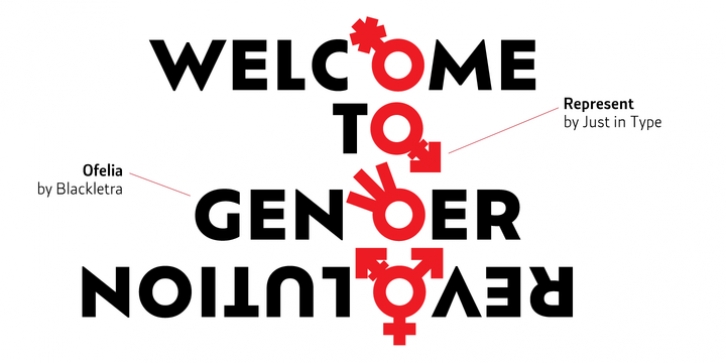
To understand the diversity in the world it is necessary to recognize its symbols. Sex, gender and sexual orientation should be represented in the clearest way possible. The REPRESENT family brings 15 symbols in 12 weights (from skinny to plus size), in three styles: Sans, Rounded and Stencil. Choose the variant that fits your favourite fonts the best and broaden the public of your messages.